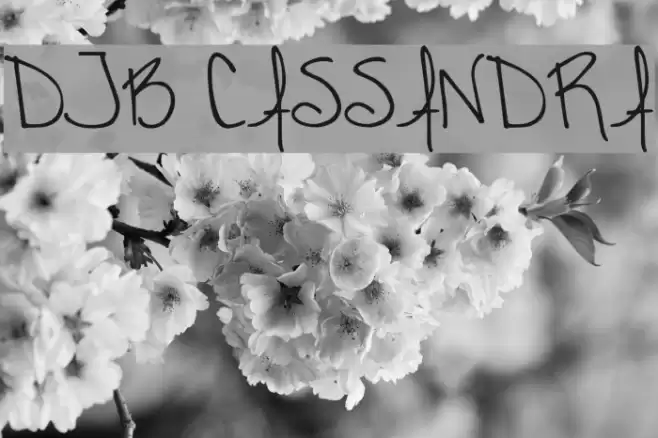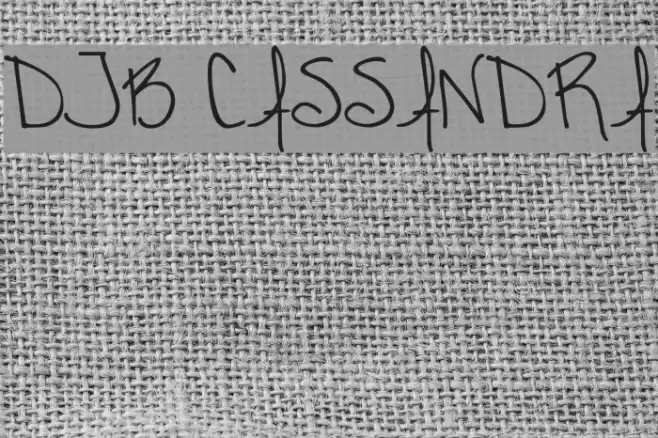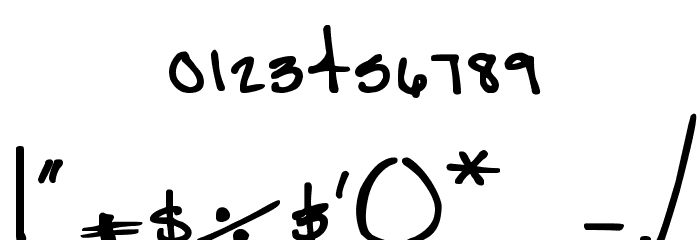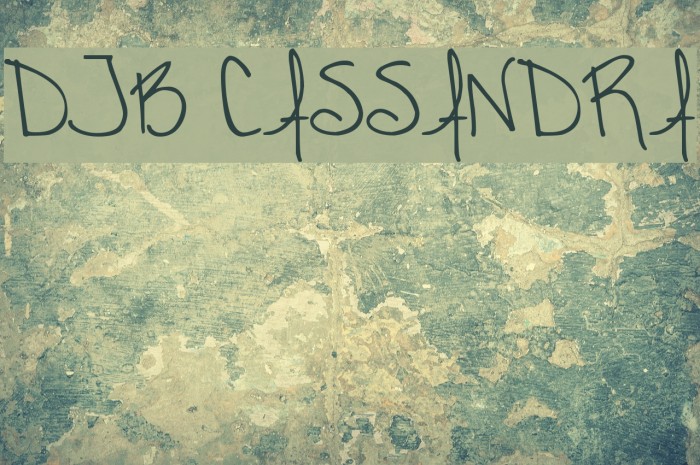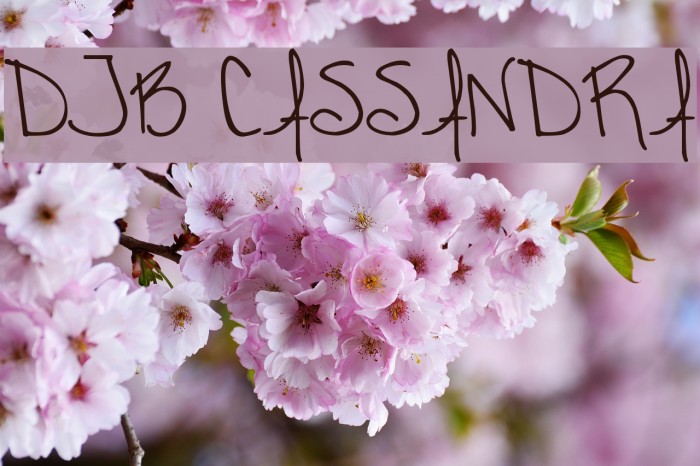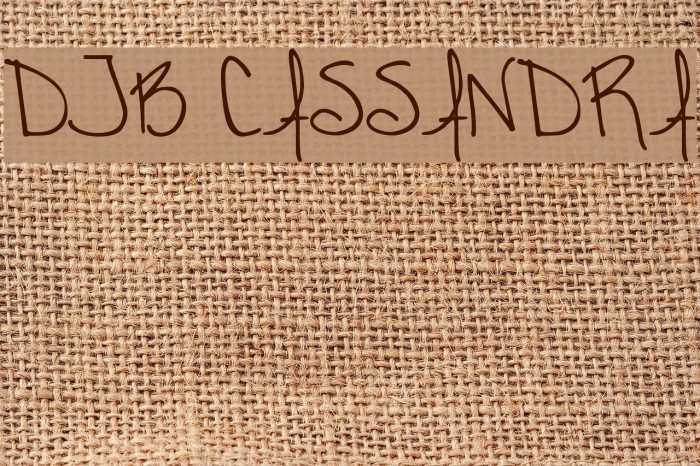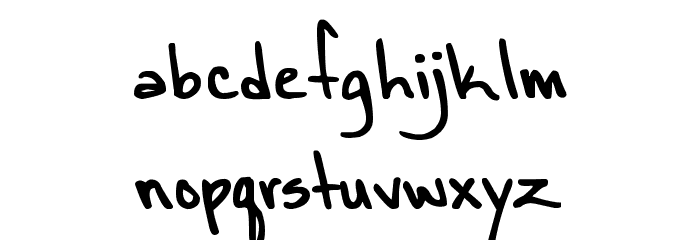
DJB CASSANDRA Font
DJB CASSANDRA Description
This font exhibits a playful and informal handwritten style, characterized by its loose and casual strokes. The uppercase letters are tall and slightly irregular, giving them a whimsical appearance. The lowercase letters are more compact and rounded, maintaining a consistent flow that complements the uppercase. Numbers are straightforward and align well with the overall style, while special characters retain the same playful essence. The font's overall appearance is friendly and approachable, making it suitable for projects that require a personal touch.
A playful, informal handwritten font with a whimsical and friendly style from Handwritten fonts.
- Overall Style: Casual